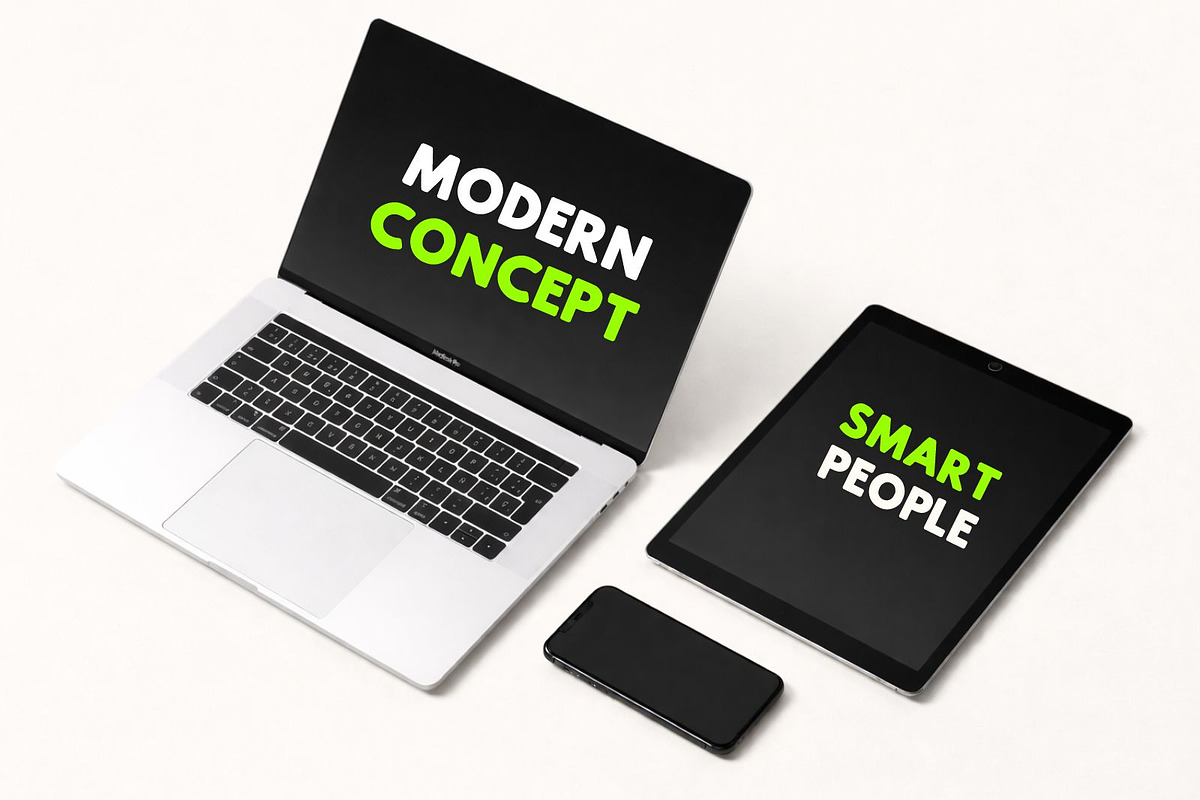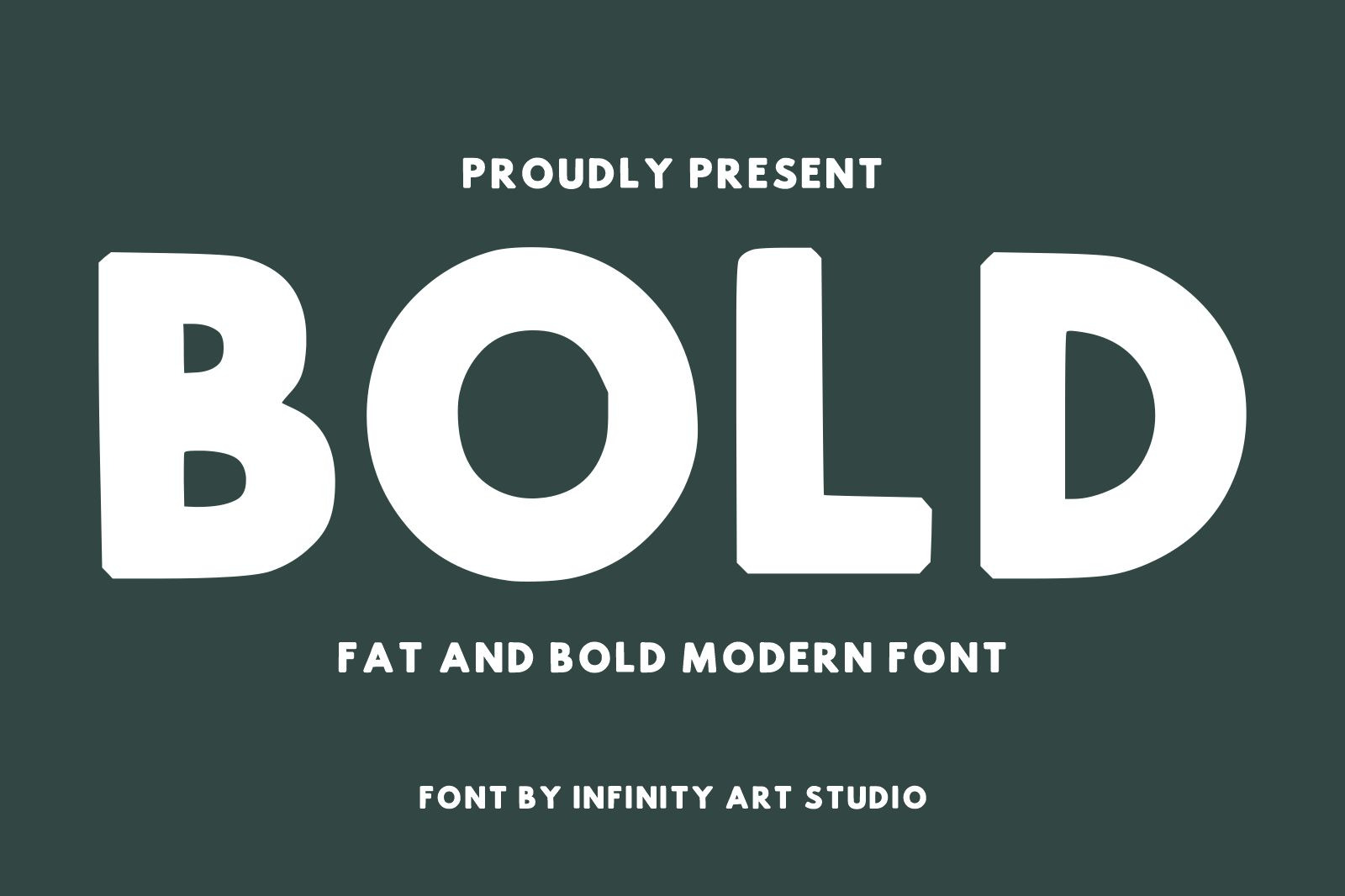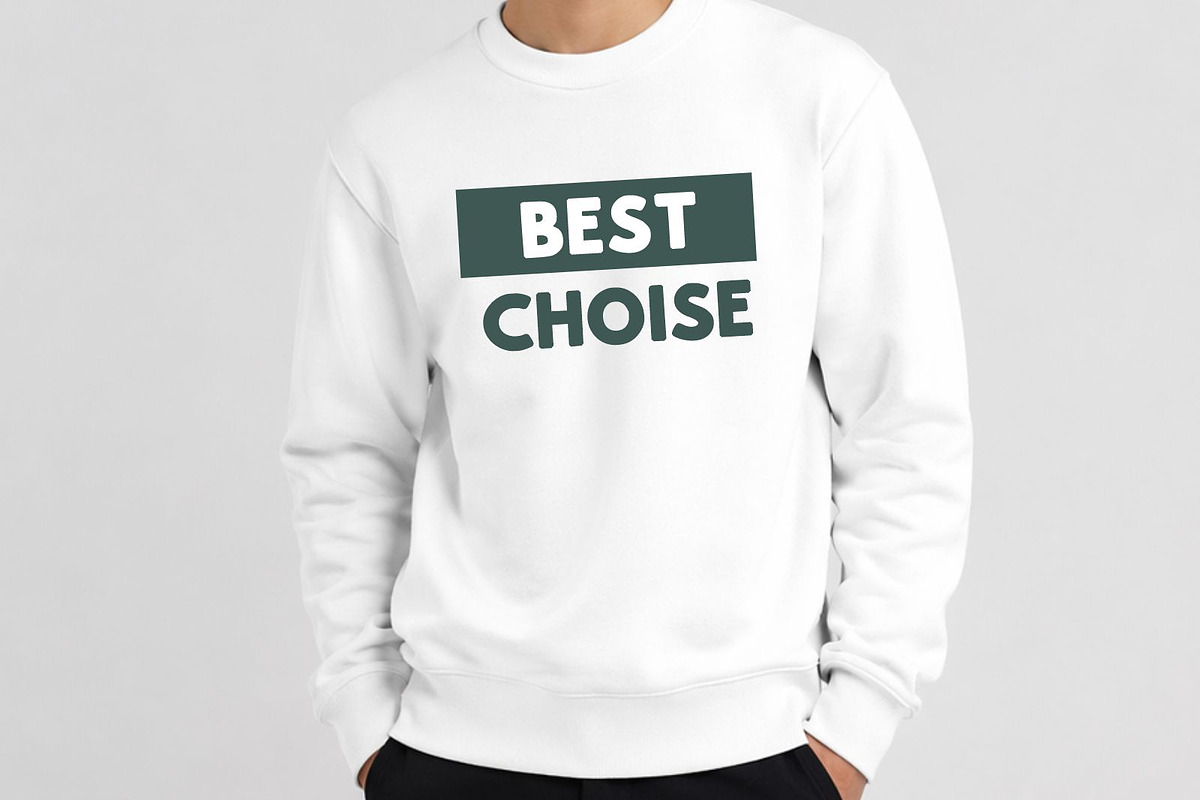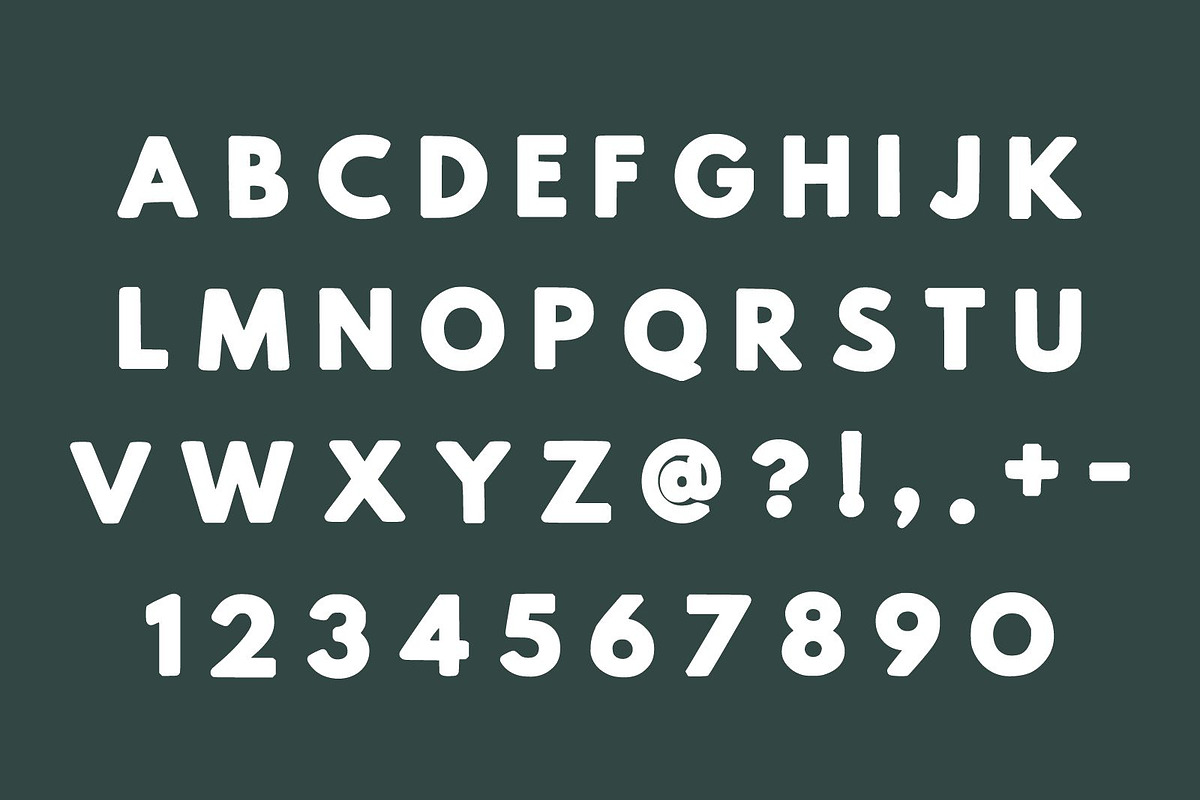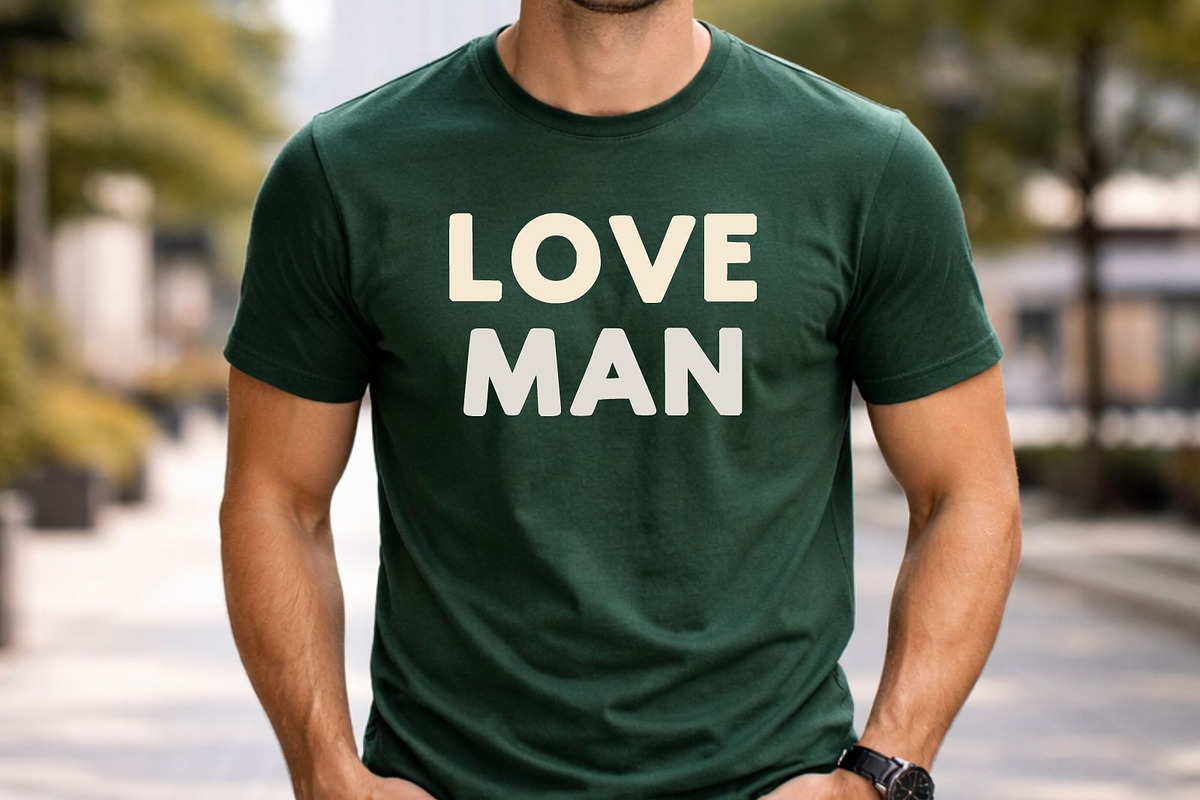
Bold Fat Modern Font
Bold Fat Modern Font is a powerful and contemporary display typeface designed to make a strong visual statement. Featuring extra-thick letterforms, clean geometric construction, and a modern minimalist aesthetic, this font is perfect for designers who want maximum impact with minimal effort.
Created with versatility in mind, Bold Fat Modern Font combines the simplicity of modern sans serif typography with a bold, confident presence. Its oversized proportions and smooth curves deliver exceptional readability while maintaining a trendy and professional appearance. Whether used for branding, advertising, social media graphics, packaging, posters, websites, or editorial layouts, this font instantly commands attention.
The clean and modern design makes it an excellent choice for contemporary brands, startups, technology companies, fashion labels, creative agencies, and content creators. Its strong structure allows it to perform beautifully in logos, headlines, banners, product packaging, YouTube thumbnails, merchandise, and promotional materials.
Bold Fat Modern Font is ideal for projects that require a fresh, energetic, and highly visible typographic style. The font’s thick strokes create a friendly yet authoritative personality, making it suitable for both playful and professional applications. From modern branding systems to eye-catching marketing campaigns, this typeface provides the perfect balance of boldness, clarity, and contemporary design.